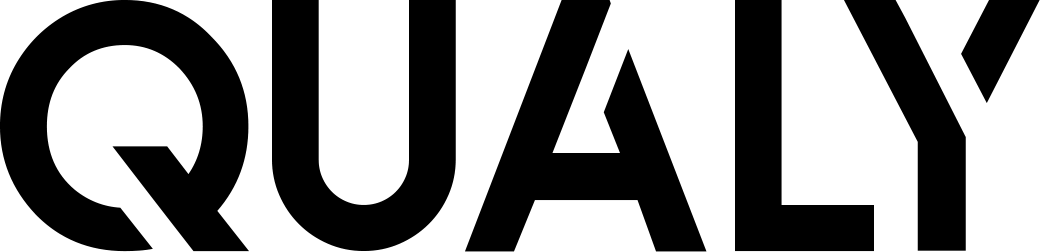
Qualy Font
If you want to give a modern vibe to your words Qualy is your guy! This sans serif font has big capitalized letters and cuts in some of its characters. It can be used for any digital texts or headline and sci-fi and futuristic movie and book titles. Qualy will give a techno look and eye-catching design to your readers.
Note of the authorWe introduce Qualy font with a modern and clean unique form. This font has a feature that you can get with different font characters (please see the preview https://graphicriver.net/item/qualy/25408468).License